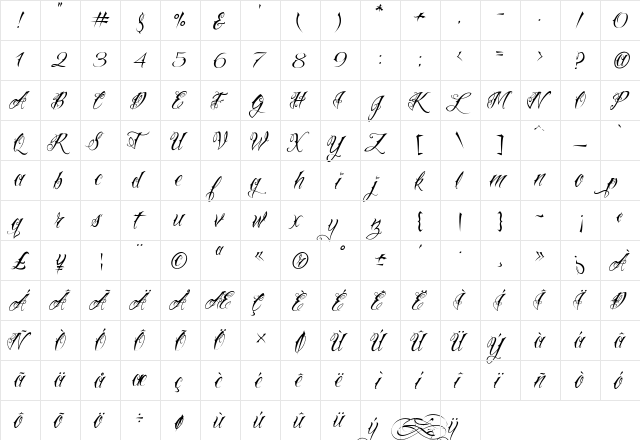
Vtc-NueTattooScript Regular
| Foundry | WolfBainX-aka-Larry E. Yerkes, Vigilante Typeface Corporation |
| Designer | WolfBainX-aka-Larry E. Yerkes, Vigilante Typeface Corporation |
Design Context for Vtc-NueTattooScript Typeface
Vtc-NueTattooScript brings a calligraphic fluidity to the page — its connecting strokes and expressive curves give it an unmistakably human quality.
Font Pairing: Combine Vtc-NueTattooScript with a simple geometric sans for maximum contrast — the tension between flowing curves and clean structure is a classic typographic pairing.
Pro Tip: Pair Vtc-NueTattooScript with a clean sans-serif for supporting text. The contrast between fluid script and geometric structure creates an elegant typographic hierarchy.